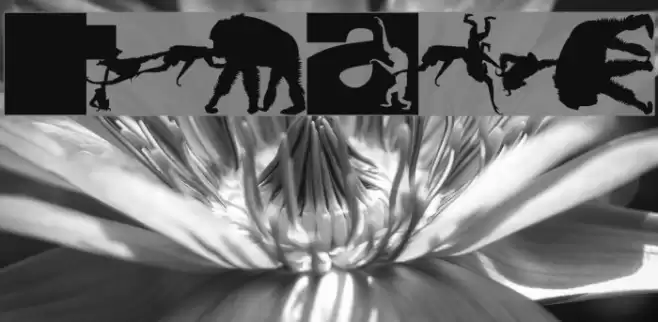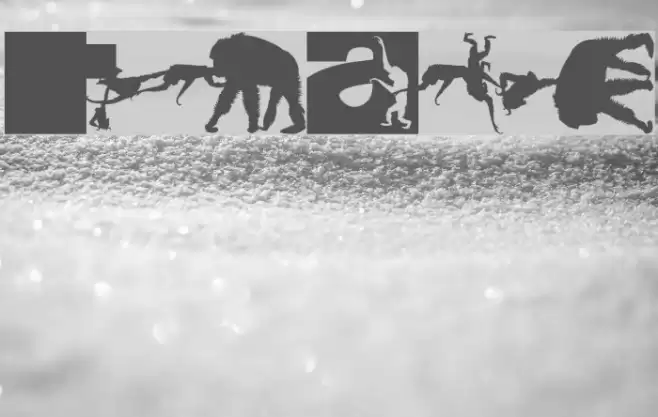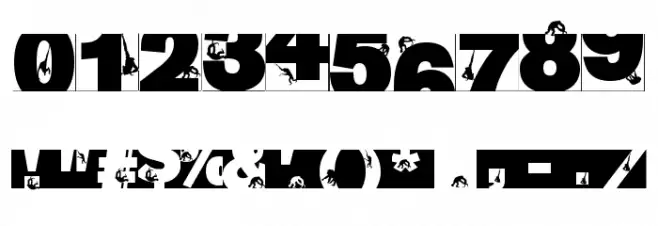
TypoApish Font
TypoApish Description
This font is a playful and creative design that incorporates silhouettes of monkeys into each character. The letters and numbers are bold and blocky, with the monkeys cleverly integrated into the negative space, creating a whimsical and dynamic appearance. The font is highly decorative, making it ideal for projects that require a fun and engaging visual element. The characters are evenly spaced, allowing for clear readability despite the intricate design. This font is perfect for children's books, playful branding, or any project that aims to capture a sense of adventure and fun.
A playful font featuring monkey silhouettes integrated into bold, blocky characters from Uncategorized fonts.
- Proposed Projects: Children's books, playful branding, adventure-themed posters, educational materials.